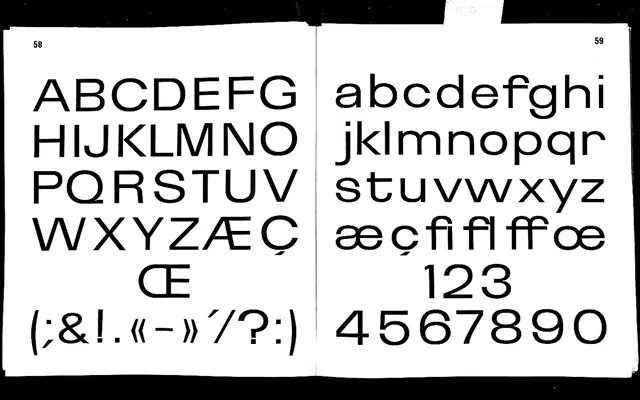
Acrylic
Pyte Foundry · Ellmer Stefan · 2025
A three-family neo-grotesque by Ellmer Stefan drawn from Albert Boton's Brasilia, moving from proportional to fixed-width spacing while deliberately unsettling the genre's air of rational certainty.
Rooted in Brasilia, Boton's 1950s Swiss sans for Hollenstein Phototypo, Acrylic progresses across three multiplexed families: Ortho (proportional), Pseudo (intermediate) and Mono (fixed-width), each in eight weights from Thin to Black. Hyper-closed apertures give strong, self-contained word images suited to logotypes and headlines, while the monospaced end acquires a bureaucratic texture useful for UI. Named stylistic sets including Pervert Alternates, Skeptic Alternates and Nihilist Alternates introduce deliberate formal disruptions, exposing the constructed nature of neo-grotesque transparency as a design ideology.
Acrylic derives from Brasilia, a Swiss neo-grotesque from the late 1950s, and deliberately interrogates the genre's conventions through stylistic alternates and multiplexed spacing variants. Its hyper-closed apertures and rational structure place it squarely within neo-grotesque tradition, even as it critiques it.